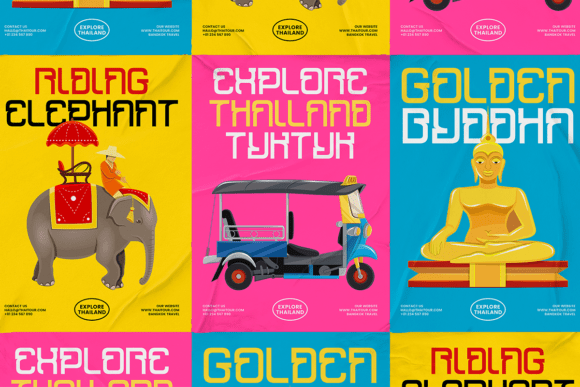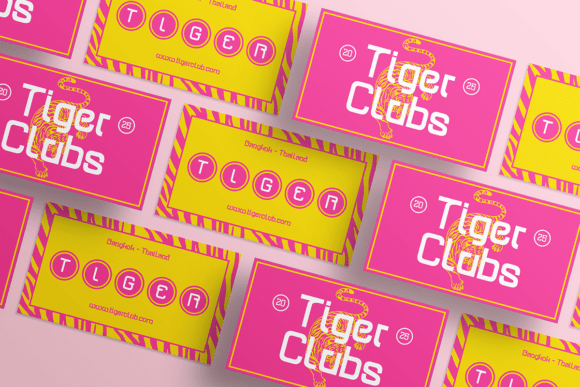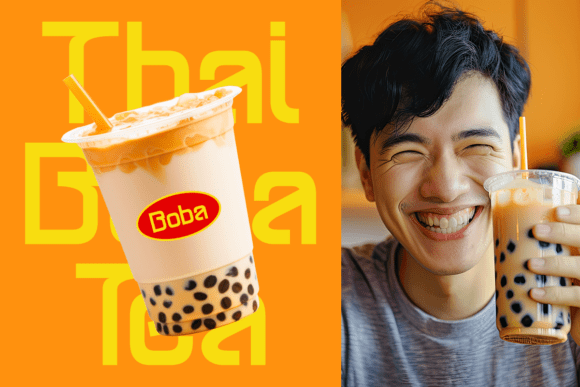
Introduction to Rungdee Font Font
Fonts play a crucial role in design, and the Rungdee Font font is a typeface that brings both character and versatility to any project. Whether you’re working on a branding project, a website, or a print design, the Rungdee Font font offers a unique style that can elevate your work.
Elevate your designs with Rungdee Thai Display Font, a vibrant and bold Thai display typeface blending modern geometric shapes with a distinctively Thai aesthetic.
Its structured yet playful letterforms evoke the essence of traditional Thai signage and contemporary design, making it perfect for branding, packaging, posters, and cultural-themed projects With a striking balance of readability and artistic expression, Rungdee captures the spirit of Thai visual identity, adding a fresh and dynamic touch to any creative work.
Key Features of Rungdee Font Font
Why Choose Rungdee Font Font?
The Rungdee Font font is more than just a typeface – it’s a design tool that helps you communicate your message with style and clarity. Its unique character set and versatile design make it suitable for a wide range of applications, from elegant invitations to bold headlines.
With its carefully crafted letterforms and balanced proportions, the Rungdee Font font ensures readability and visual appeal across all mediums.
What makes Rungdee Font font special?
The Rungdee Font font stands out with its unique design, exceptional readability, and versatility across various design applications.